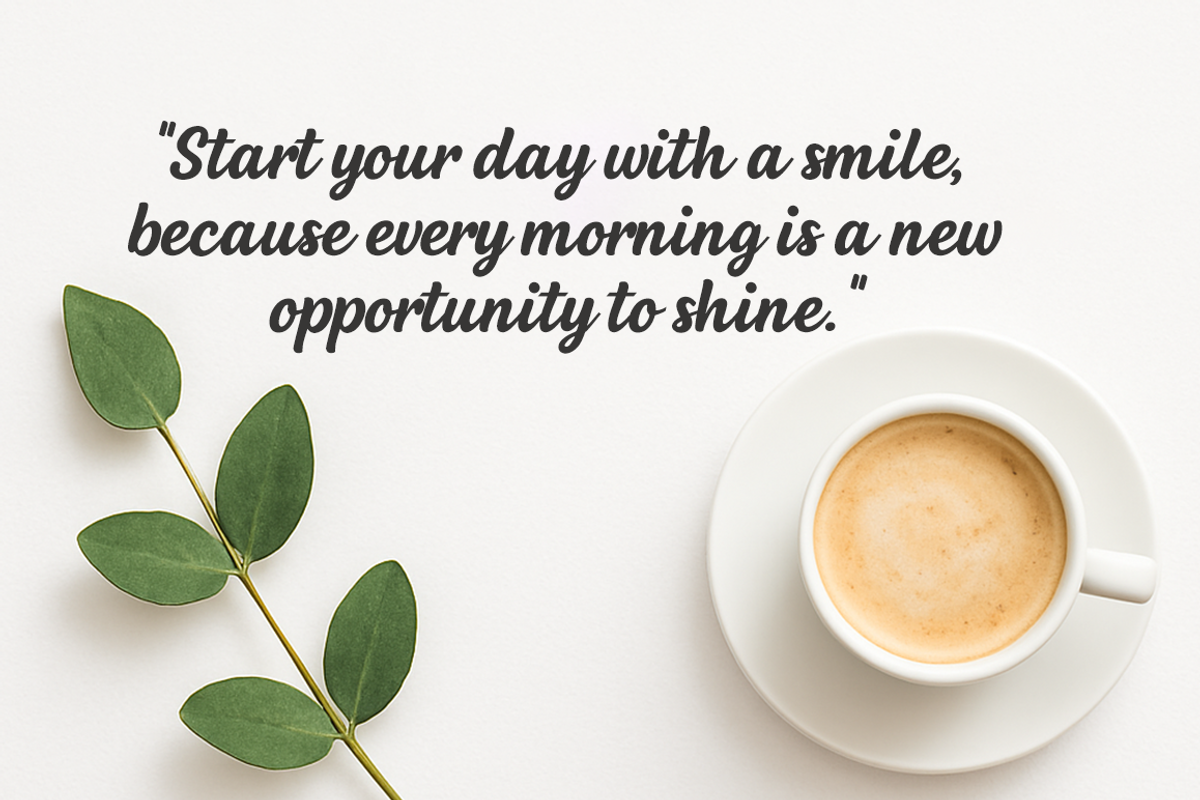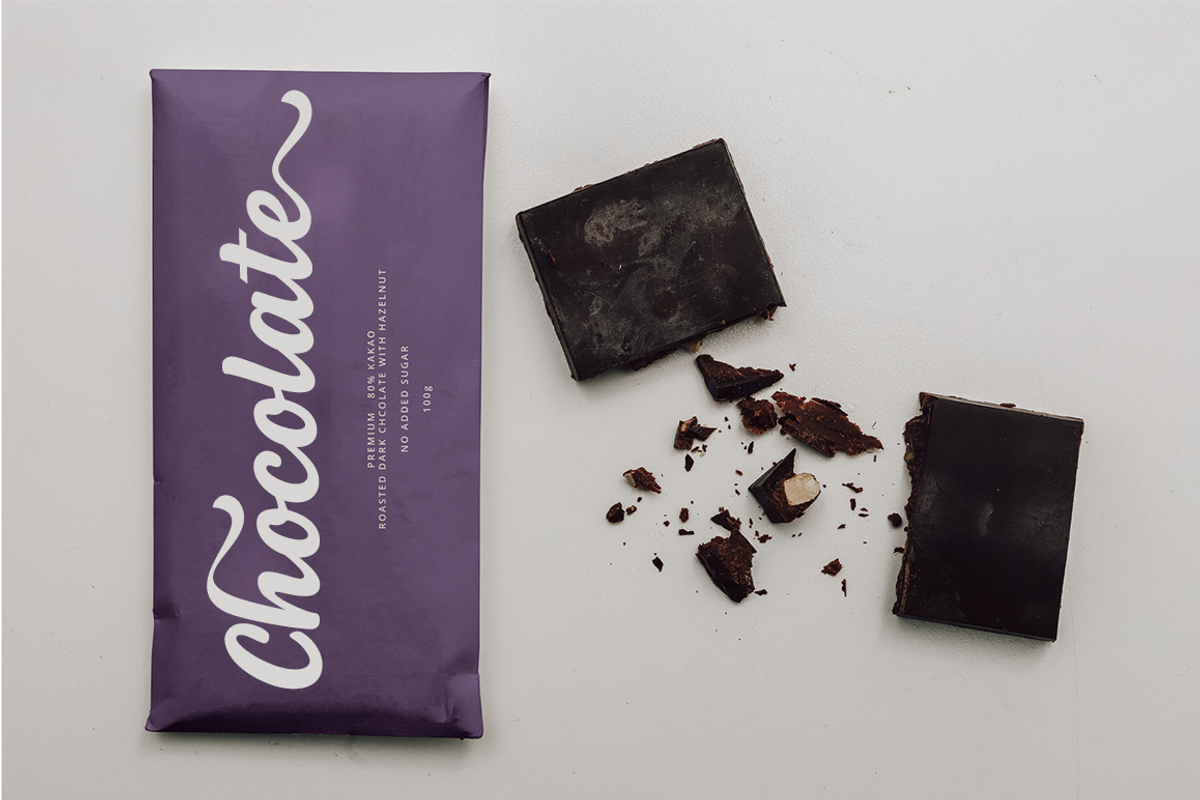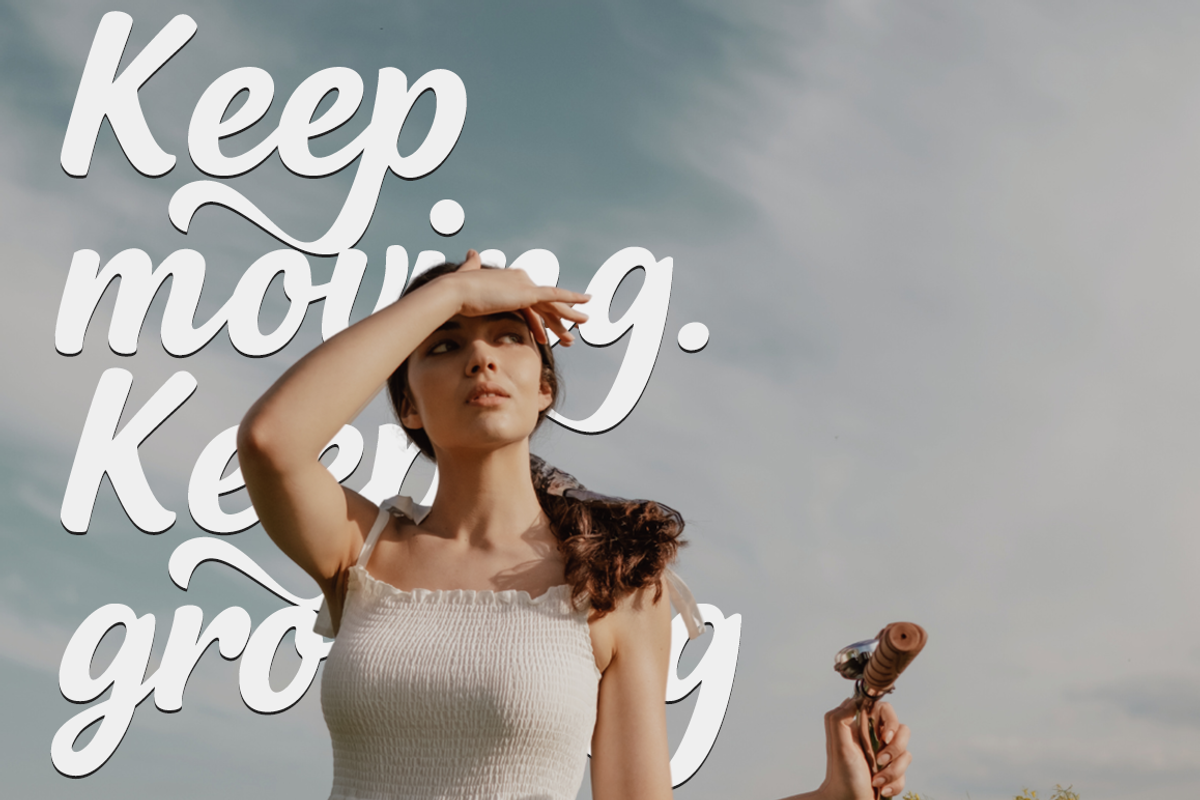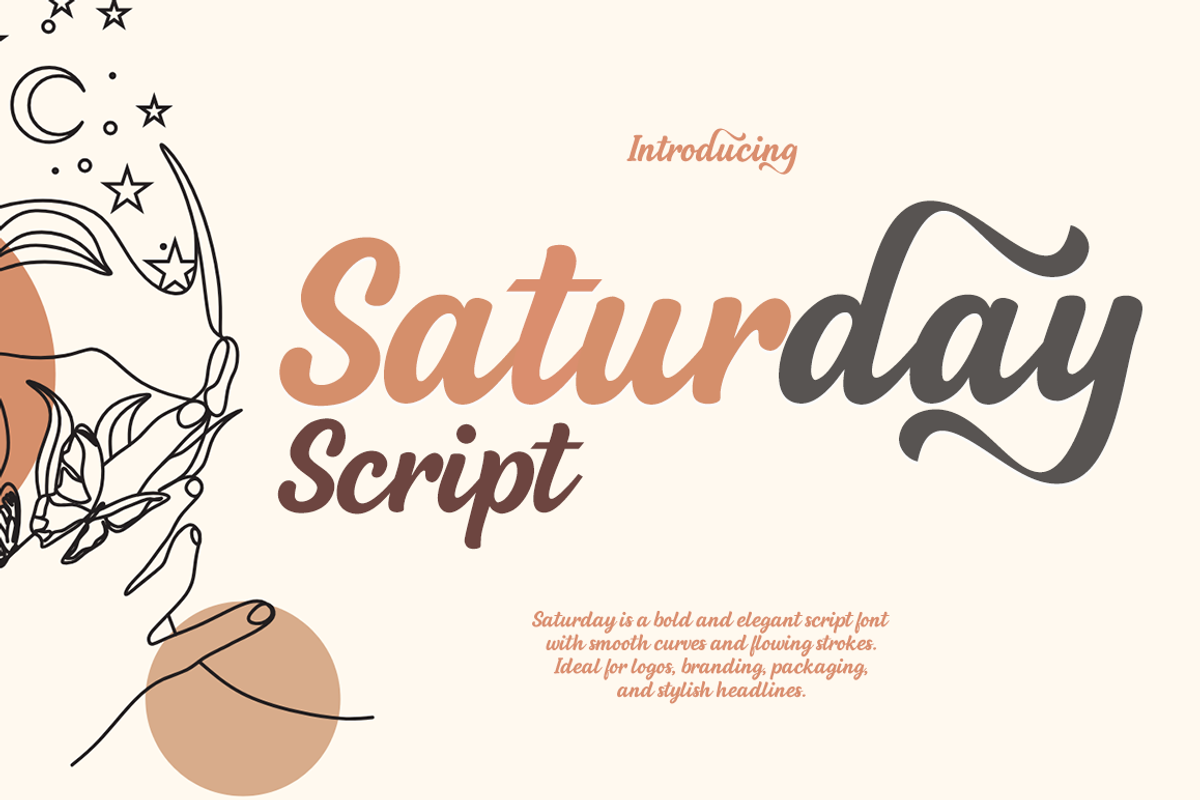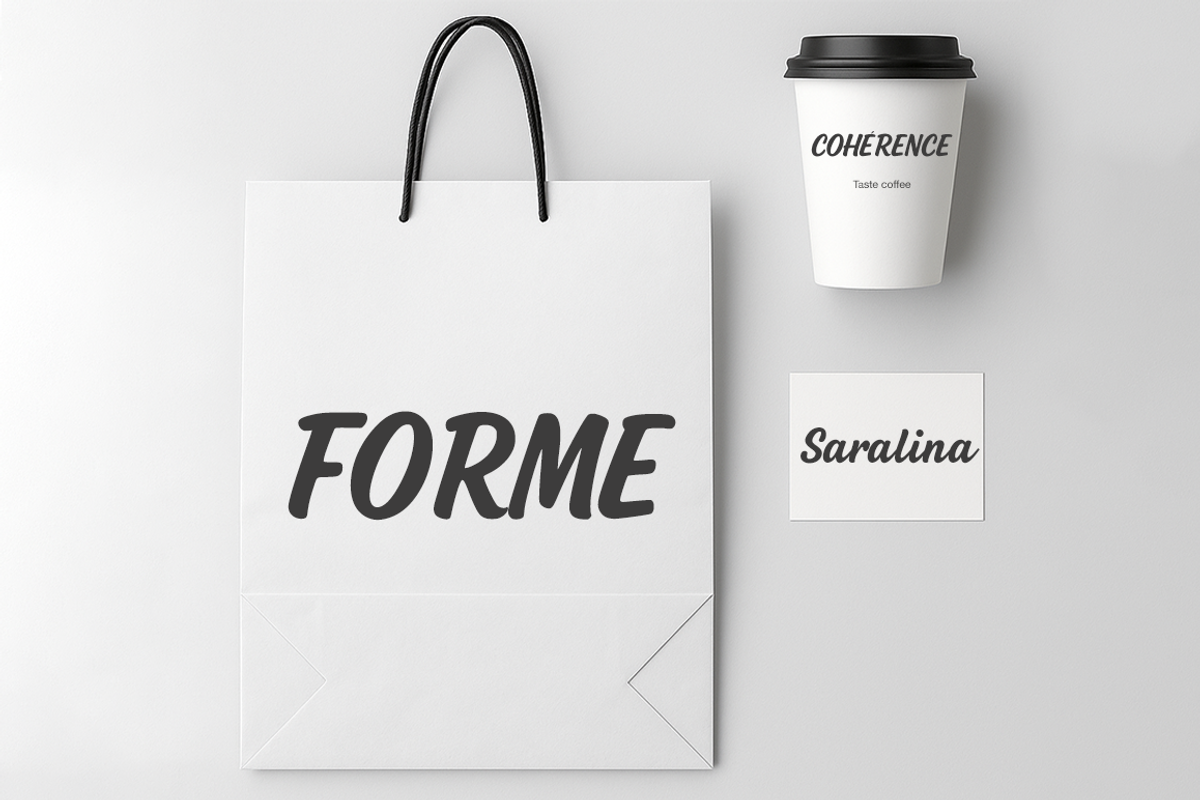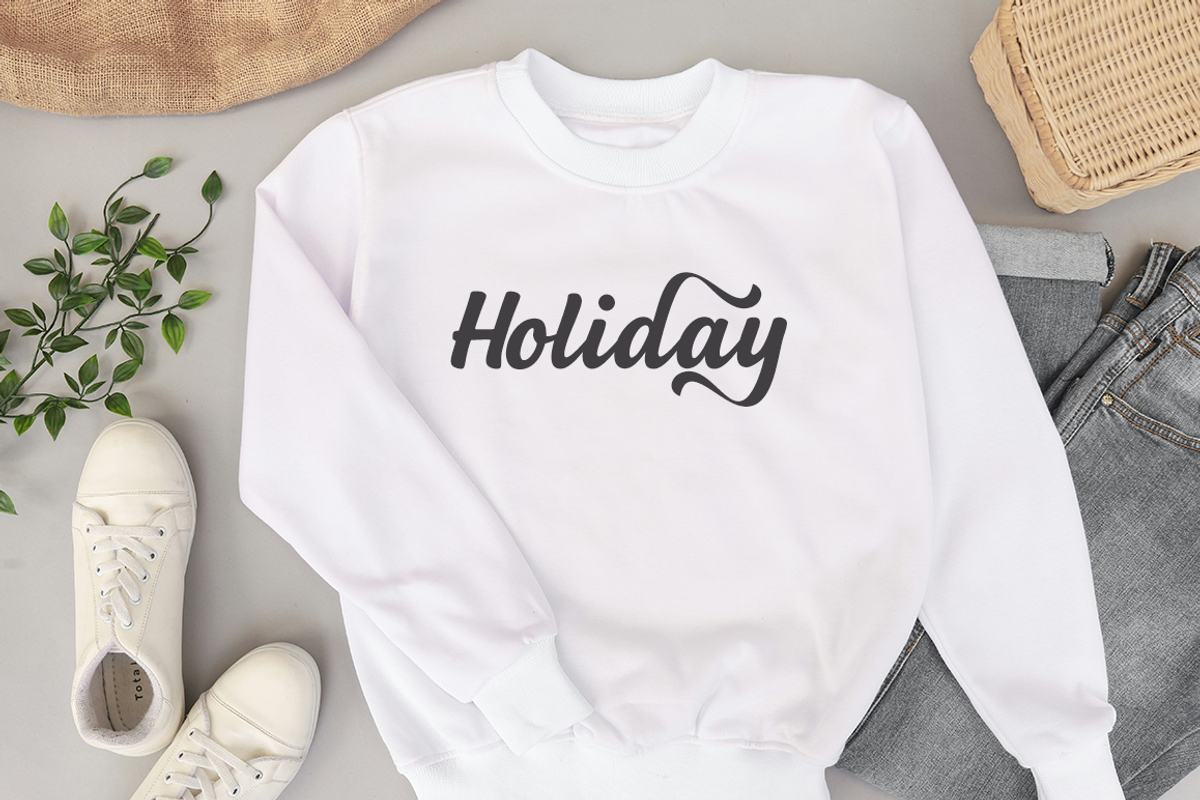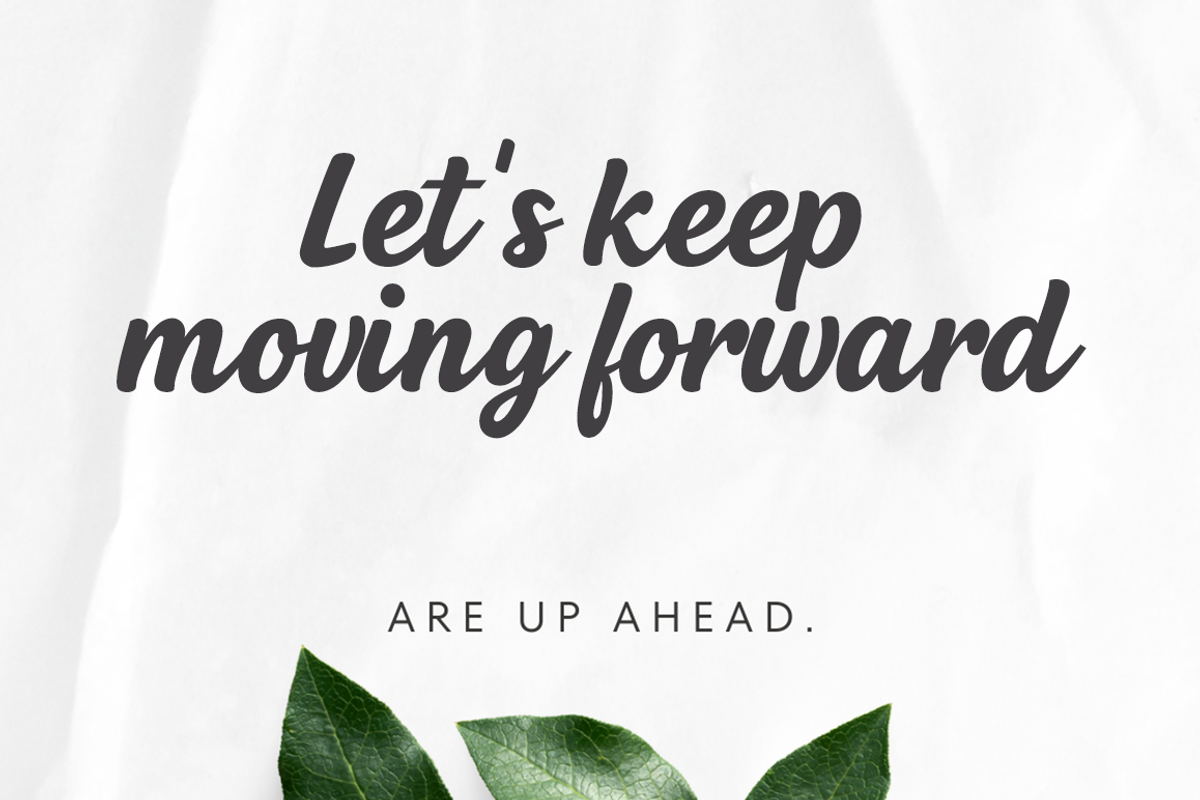
Saturday script
Saturday Script is a bold and elegant script font featuring smooth curves and flowing lines. Perfect for logos, branding, packaging, and stylish headlines that need a touch of flair and personality.